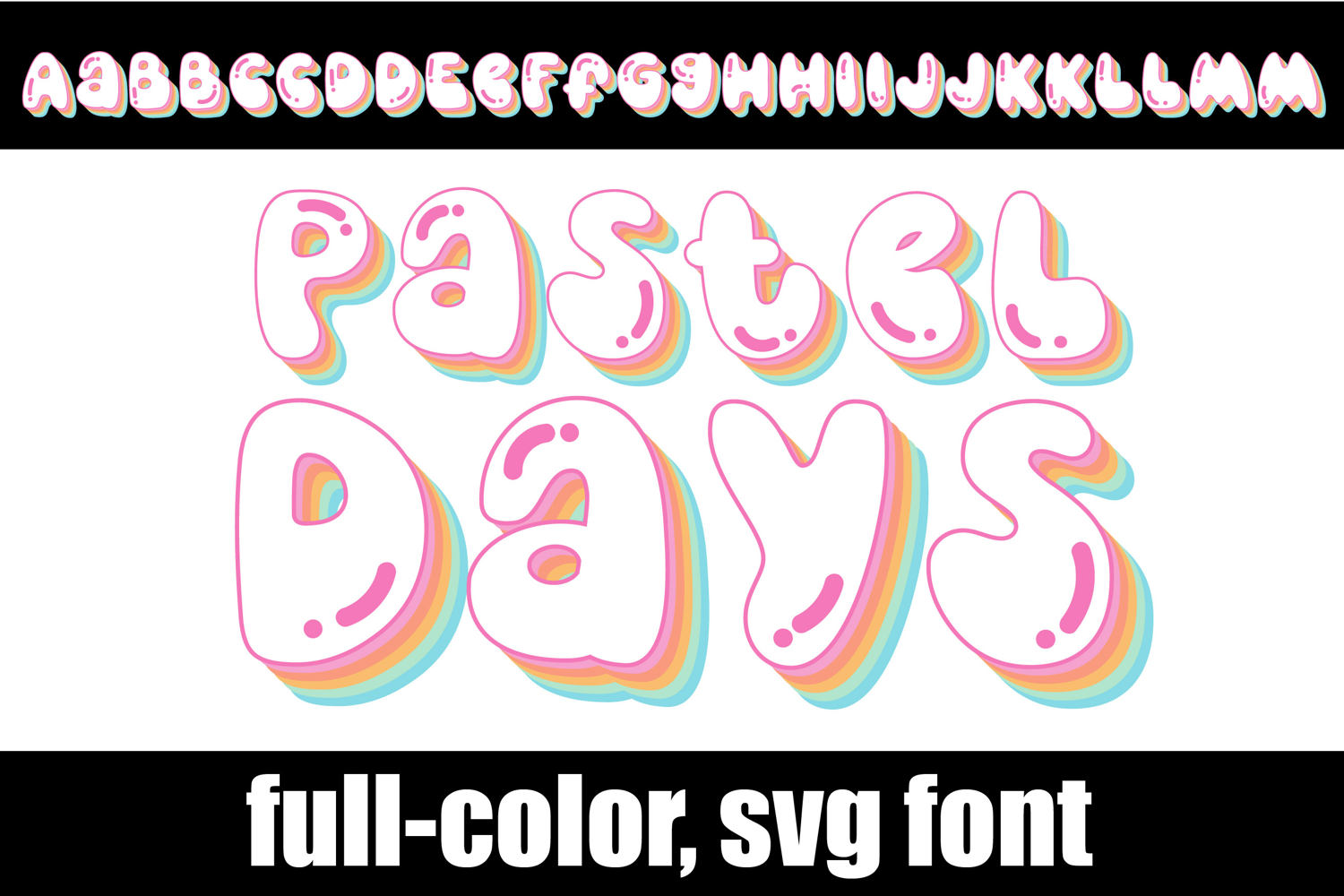
Pastel Days Color Font
This full-color, pastel-colored font features a retro style font. There is an alt case of each letter with a different color combination.